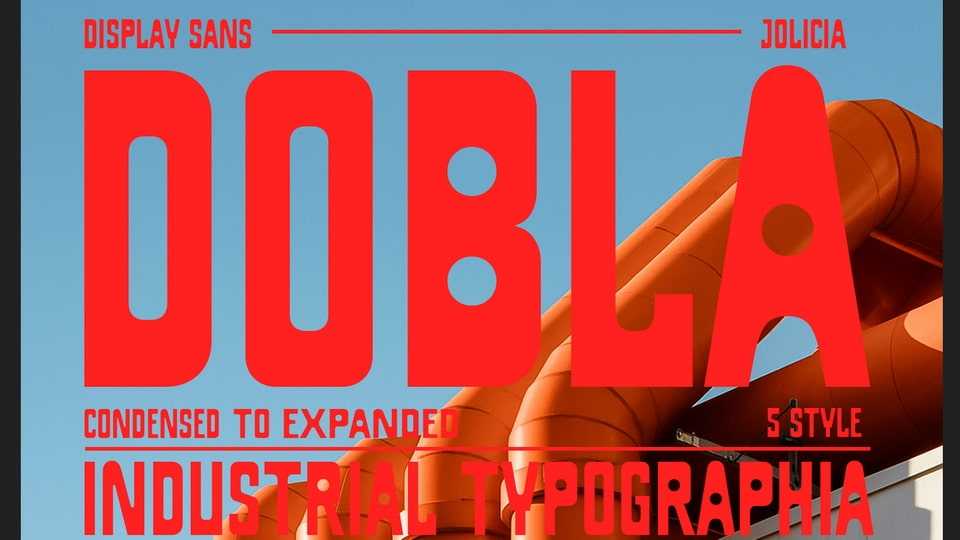
Dobla Sans Font › Fontesk
Download Dobla Sans font, a commanding display sans-serif typeface inspired by the strength of industrial architecture and factory machinery.